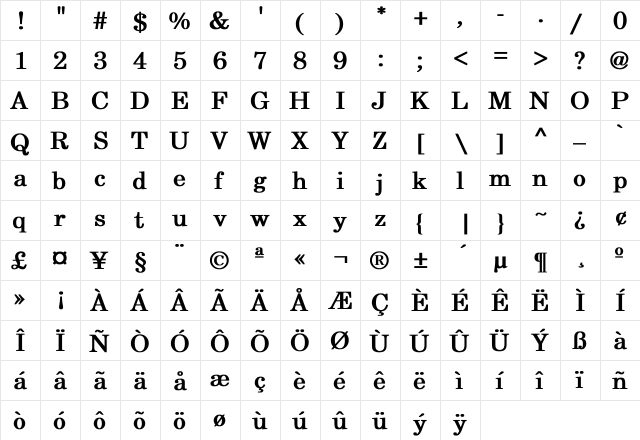
Cranbrook Bold Font Preview
Cranbrook Bold
Design Context for Cranbrook Typeface
Cranbrook offers clean, dependable letterforms without strong stylistic allegiance, making it a practical choice for designers who need flexibility. The heavy weight commands attention and anchors typographic hierarchies.